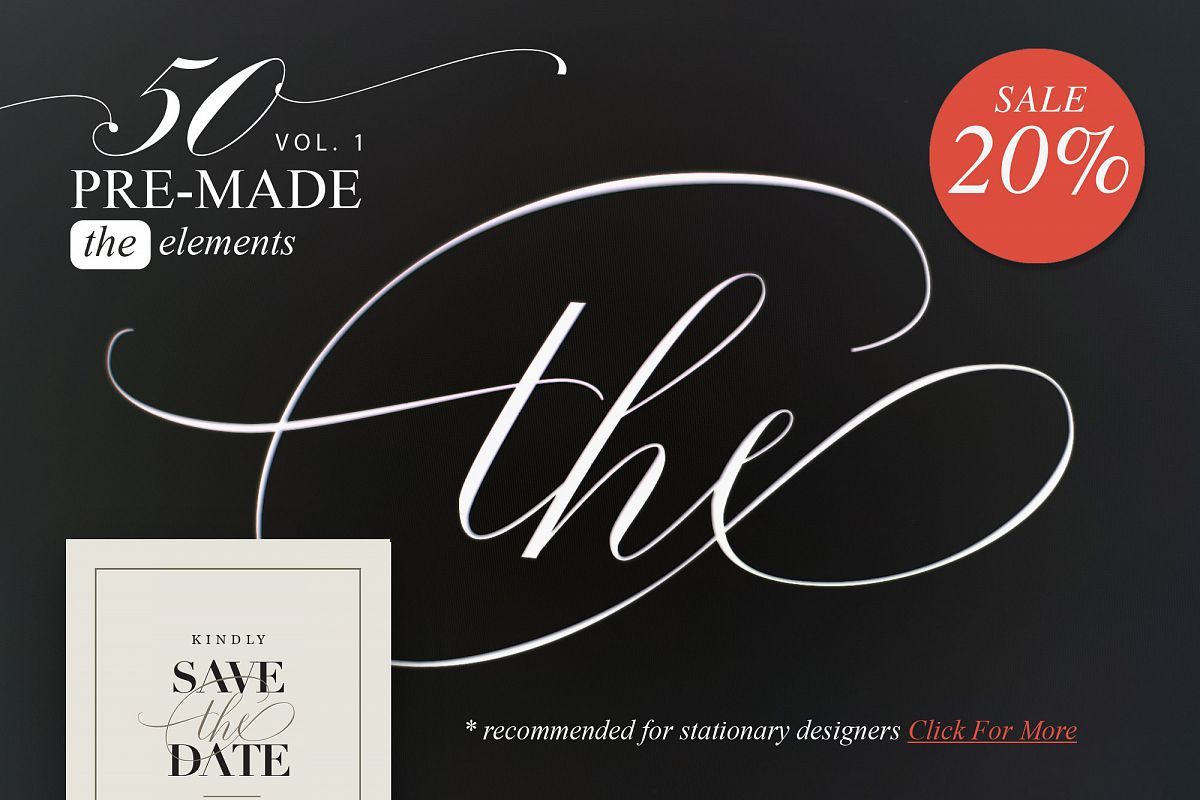
Fifty pre-made elements of "THE"
This pack will become the favorite tool for logo and wedding designers. Whenever you decide to add your design some elegant accent pick one of the fifty high-quality pre-made "THE". So many elegant swashes and swirls in one place ready to transform any wedding invitation to chic, classy and trendy design.HOW DOES IT WORK
RECOMMENDED FOR
• stationary designers
• wedding invitations
• save the date
• magazine
• logo designs
• tattoo
• signs